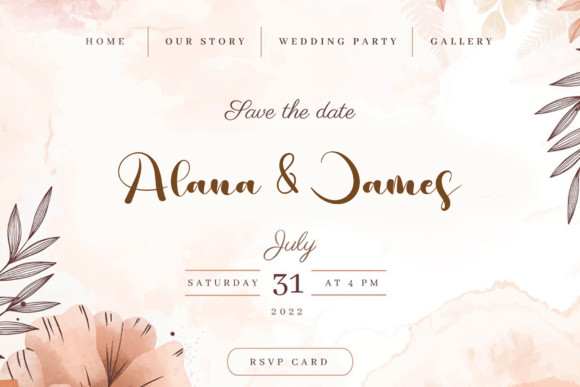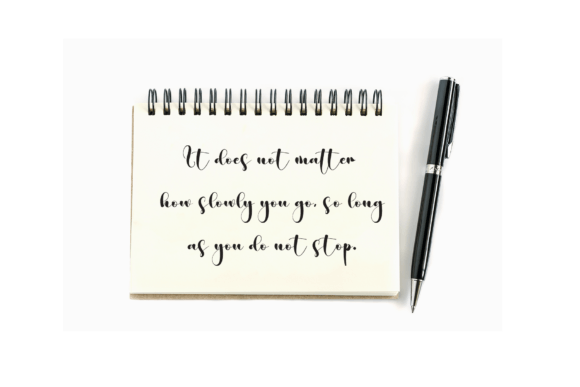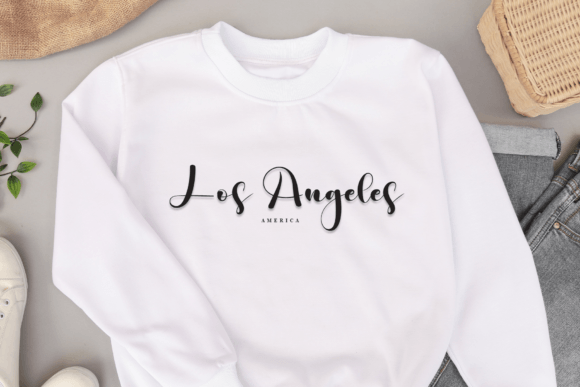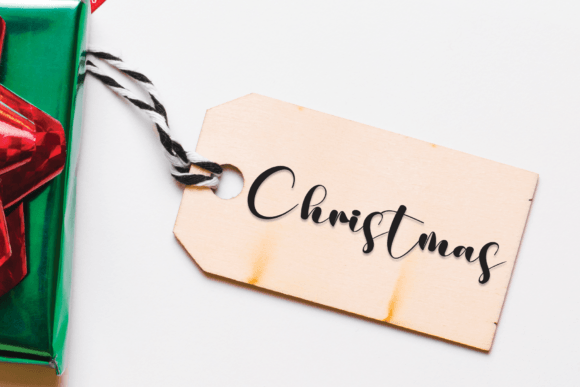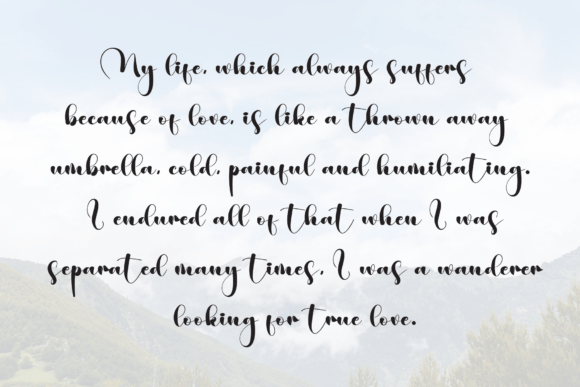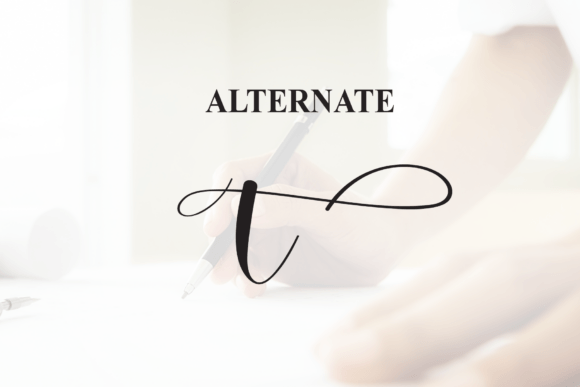
Introducing Autograph Font: The Sweet and Delicate Handwritten Font for Romantic Designs
Are you a designer or crafter looking for a font that can add a touch of romance and elegance to your designs? Look no further than Autograph Font! This beautiful, handwritten font is perfect for creating wedding invitations, cards, and other designs that require a personal and delicate touch.
What is Autograph Font?
Autograph Font is a sweet and delicate handwritten font that is designed to bring a touch of joy and romance to your designs. Its dainty and elegant strokes make it ideal for creating beautiful wedding invitations, cards, and other paper crafts. Whether you’re a professional designer or a DIY crafter, Autograph Font is the perfect choice for anyone looking to add a personal touch to their designs.
Characteristics of Autograph Font
So, what makes Autograph Font so special? Here are some of its key characteristics:
- Sweet and delicate: Autograph Font is a handwritten font that is designed to be sweet and delicate. Its elegant strokes and dainty letters make it perfect for creating romantic designs.
- Handwritten style: Autograph Font has a beautiful, handwritten style that gives it a personal and unique touch. It’s perfect for creating designs that require a human touch.
- Romantic and elegant: Autograph Font is designed to be romantic and elegant. Its beautiful letters and delicate strokes make it perfect for creating wedding invitations, cards, and other romantic designs.
- Versatile: Autograph Font is a versatile font that can be used for a variety of designs, including wedding invitations, cards, paper crafts, and more.
Uses of Autograph Font
So, what can you use Autograph Font for? Here are some ideas:
- Wedding invitations: Autograph Font is perfect for creating beautiful wedding invitations that are romantic and elegant.
- Cards: Autograph Font is great for creating cards for special occasions, such as birthdays, anniversaries, and holidays.
- Paper crafts: Autograph Font is perfect for creating paper crafts, such as scrapbook pages, journal entries, and other DIY projects.
- Stationery: Autograph Font can be used to create beautiful stationery, such as letterheads, notebooks, and journals.
Tips for Using Autograph Font
Here are some tips for using Autograph Font:
- Use it for headings: Autograph Font is perfect for use as a heading font. Use it to create beautiful headings and titles for your designs.
- Pair it with other fonts: Autograph Font can be paired with other fonts to create a unique and interesting design. Try pairing it with a bold font for a striking contrast.
- Experiment with colors: Autograph Font looks great in a variety of colors. Experiment with different colors to find the one that works best for your design.
- Use it for digital designs: Autograph Font can be used for digital designs, such as social media graphics, blog posts, and more.
In conclusion, Autograph Font is a beautiful, handwritten font that is perfect for creating romantic and elegant designs. Its sweet and delicate strokes make it ideal for wedding invitations, cards, and other paper crafts. With its versatility and range of uses, Autograph Font is a must-have font for designers and crafters. So why not give it a try and see what beautiful designs you can create?